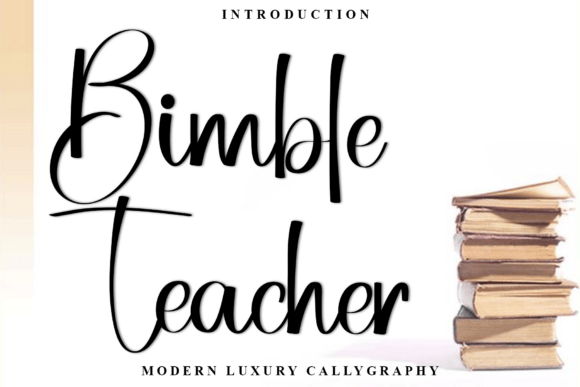
The Bimble Teacher Font: A Timeless Choice for Creative Projects
Have you ever been in the middle of a design project, only to find yourself stuck on one thing: the perfect font? I recall a particularly frustrating experience while working on an educational brochure. My client wanted a font that exuded professionalism, elegance, and a touch of warmth. After hours of scouring the internet, I stumbled upon the Bimble Teacher font. It was love at first sight! ✨
An Honest Review of Bimble Teacher
• ✨ Elegant and Professional: Bimble Teacher boasts a graceful, modern calligraphy style that immediately elevates any design.
• ✅ Legibility: The clean structure and looping ascenders and descenders ensure that the text remains clear and easy to read, even at smaller sizes.
• 💫 Versatility: This font is perfect for a wide range of applications, from educational materials and book titles to sophisticated branding and mentorship programs.
While Bimble Teacher is an exceptional font, there are a few minor considerations to keep in mind:
• ⚠️ Limited Use in Decorative Contexts: Due to its elegant and refined nature, Bimble Teacher might not be the best choice for very playful or decorative projects.
• 🤔 Requires Attention to Spacing: As with many script fonts, you may need to adjust the spacing between letters to ensure optimal readability, especially in larger blocks of text.
The Story Behind Bimble Teacher
Bimble Teacher was designed with the intention of creating a font that embodies both elegance and legibility. The designer aimed to blend modern calligraphy with a clean structure, making it perfect for educational materials, professional branding, and more. The result is a font that feels both luxurious and approachable.
Q: What makes Bimble Teacher suitable for educational materials?
A: Bimble Teacher’s clear legibility and elegant appearance make it an excellent choice for educational materials, helping to convey information in a refined and professional manner.
Q: Is Bimble Teacher difficult to read?
A: No, Bimble Teacher is designed to be clear and legible, making it easy to read even at smaller sizes.